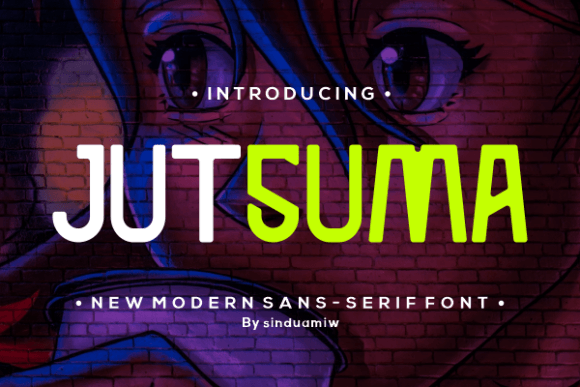
Step into a realm of boundless creativity with Jutsuma Font, the ultimate display font for bold and impactful designs.
Jutsuma Font is not just a font; it's a key to unlocking your branding's true potential. Whether you're a business owner, entrepreneur, or creative visionary, this remarkable font will elevate your visual communication like never before.
Imagine your business shirts radiating with power and confidence, each letter carrying a weight that commands attention. Jutsuma Font will transform your marketing materials into unforgettable masterpieces, leaving a lasting impression on your audience.
Unleash your inner artist and create captivating logos that leap off the page, demanding to be noticed. With Jutsuma Font, your website headlines will dance with elegance, drawing visitors in and igniting their curiosity.
But it's not just about business; Jutsuma Font is a font for dreamers, too. Allow your imagination to soar as you craft stunning invitations, event posters, and social media posts that spark joy and inspire action.
The possibilities are endless with Jutsuma Font. Join the ranks of creative professionals who have embraced its magic, transforming ordinary designs into extraordinary experiences.
Don't settle for ordinary fonts. Choose Jutsuma Font, and watch your designs ignite with passion and purpose.